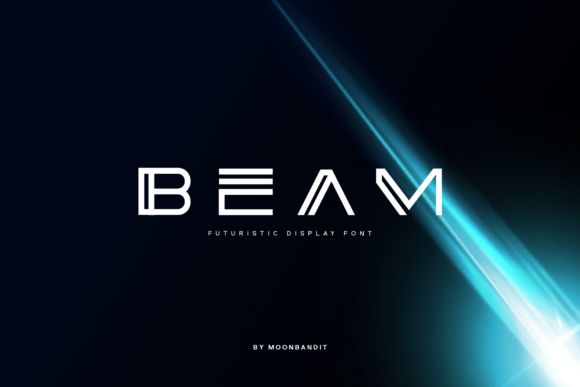
**Beam Font: The Cosmic Gateway to Stellar Designs**
In the vast expanse of digital artistry, where creativity knows no bounds, there exists a font that stands as a testament to the power of imagination. Beam Font, a celestial masterpiece from the forge of moonbandit, beckons you to embark on a typographical odyssey like no other.
Beam Font is not merely a collection of letters—it is a portal to otherworldly realms of design. Inspired by the enigmatic depths of space, this futuristic display font possesses an alluring charm that captivates the senses. Its sharp angles and ethereal curves evoke the majesty of distant galaxies, inviting you to soar beyond the ordinary and into the extraordinary.
As a display font, Beam Font commands attention with its bold presence. Its unique character set, meticulously crafted with the precision of a celestial cartographer, transforms words into cosmic wonders. Each glyph dances across the screen, carrying with it the weight of a thousand stars and the promise of boundless possibilities.
Whether you seek to illuminate the pages of a scientific journal, craft dazzling headlines that pierce through the digital noise, or unleash your creativity in uncharted territories, Beam Font is your celestial companion. Its versatility knows no limits, bending to your every whim and empowering you to weave typographic tapestries that defy the boundaries of imagination.
**Why Beam Font Is Your Cosmic Muse:**
- **Unleash the Power of Science:** Beam Font was meticulously designed to complement the language of science and exploration. Its sharp angles and geometric precision reflect the rigor of scientific inquiry, while its ethereal curves hint at the boundless mysteries that lie beyond our current understanding.
- **Command Attention with Bold Clarity:** Beam Font's striking presence ensures that your words will never be overlooked. Its bold glyphs cut through the clutter of digital landscapes, demanding attention and leaving an unforgettable impression on your audience.
- **Inspire Awe with Cosmic Elegance:** The futuristic flair of Beam Font evokes a sense of wonder and awe. It transforms ordinary text into celestial spectacles, capturing the imagination and transporting readers to realms of boundless creativity.
- **Embrace Versatility:** Beam Font is a typographic chameleon, adapting seamlessly to a myriad of design applications. From scientific journals to captivating headlines and beyond, its versatility empowers you to express your creativity without limits.